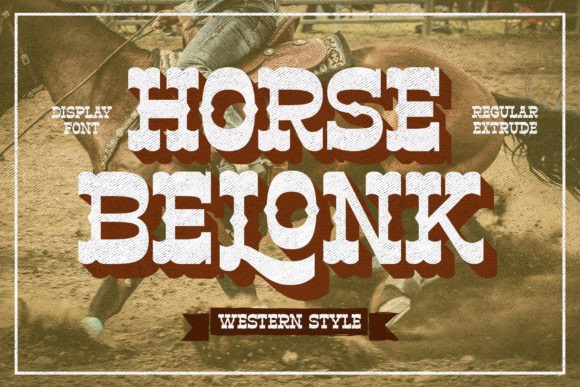
Looking for the perfect display font for your next digital poster? Look no further than Horse Belonk Font! This retro and western-inspired font, created by the talented Arterfak Project, is sure to catch the eye of anyone who sees it.
With its bold and unique design, Horse Belonk Font is the perfect addition to any designer's toolkit. Whether you're creating book covers, magazine spreads, social media posts, invitations, or anything in between, this vintage font will help elevate your designs and make them truly stand out.
But what really sets Horse Belonk Font apart is its PUA encoding. This means that accessing all of the glyphs and ligatures is a breeze, allowing you to fully customize and personalize your designs with ease.